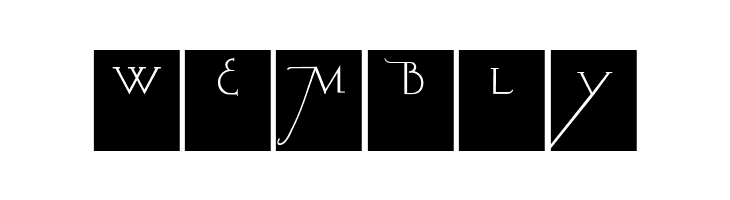
L'Olivier Font
- Font: L'Olivier
A decorative font with elongated, elegant letterforms enclosed in squares, featuring thin strokes and subtle curves.